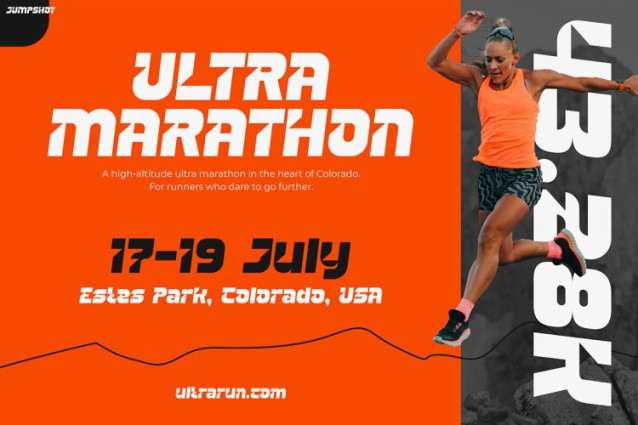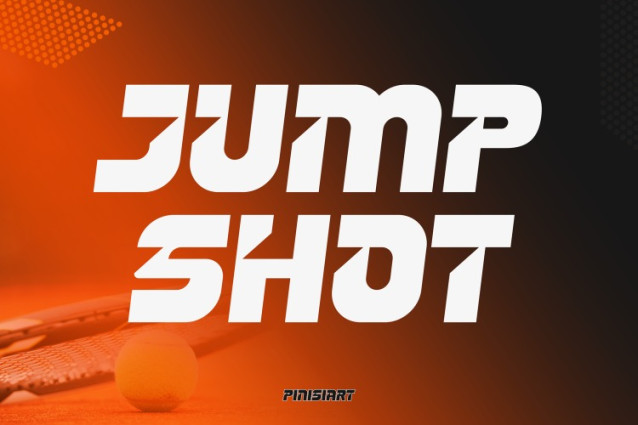
Jumpshot Font
Jumpshot Font: Conveys power, movement, and style in every bold stroke. With its strong geometric curves and futuristic structure, this font captures the exhilarating pace of sports. It grabs attention at first glance – ideal for projects that aim to inspire, energize, or boost morale.
What truly sets Jumpshot apart is its ability to blend aesthetics with function. Not only does it offer a sharp, modern look, but it also maintains excellent readability across various formats. Whether you’re designing for digital platforms or print materials, this font keeps your message bold and impactful. Moreover, the playful, action-packed vibe in every character helps your text stand out, especially in competitive design environments like sports branding or event promotion.
As a result, Jumpshot doesn’t just look good—it performs. It turns ordinary words into bold statements that move with energy and direction. So, if you’re aiming to create work that motivates, empowers, or drives action, this font gives your designs the perfect edge.